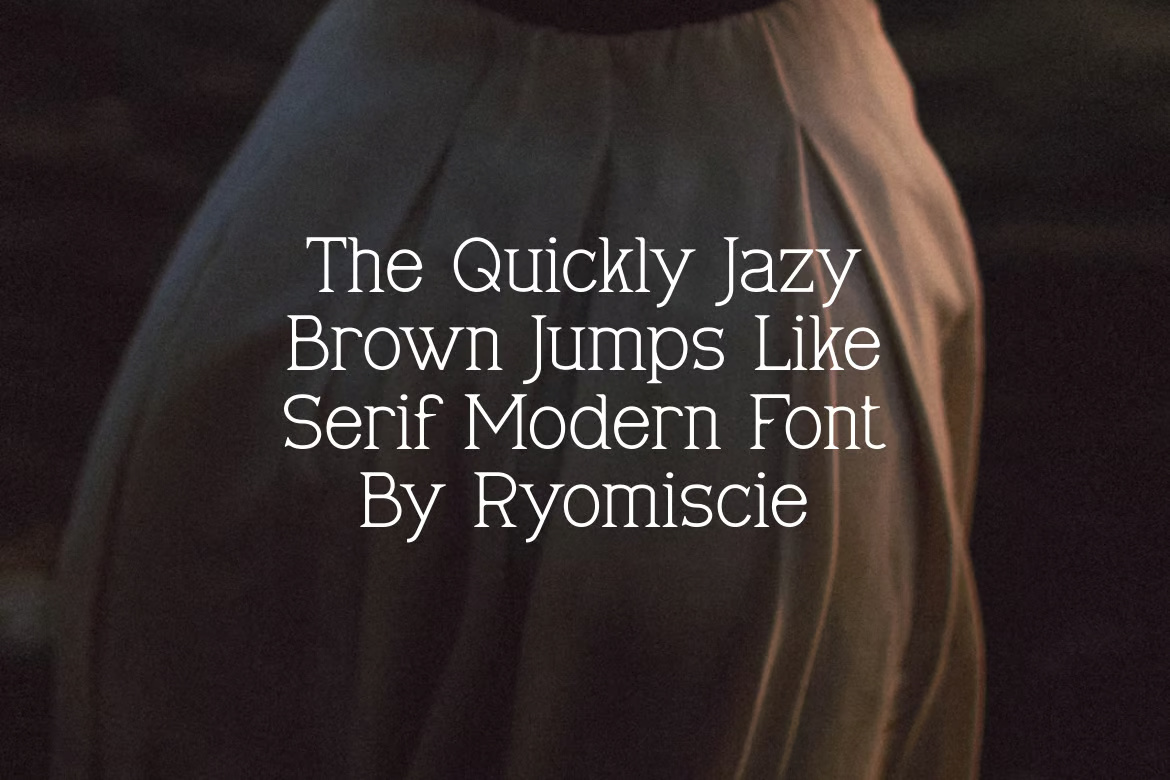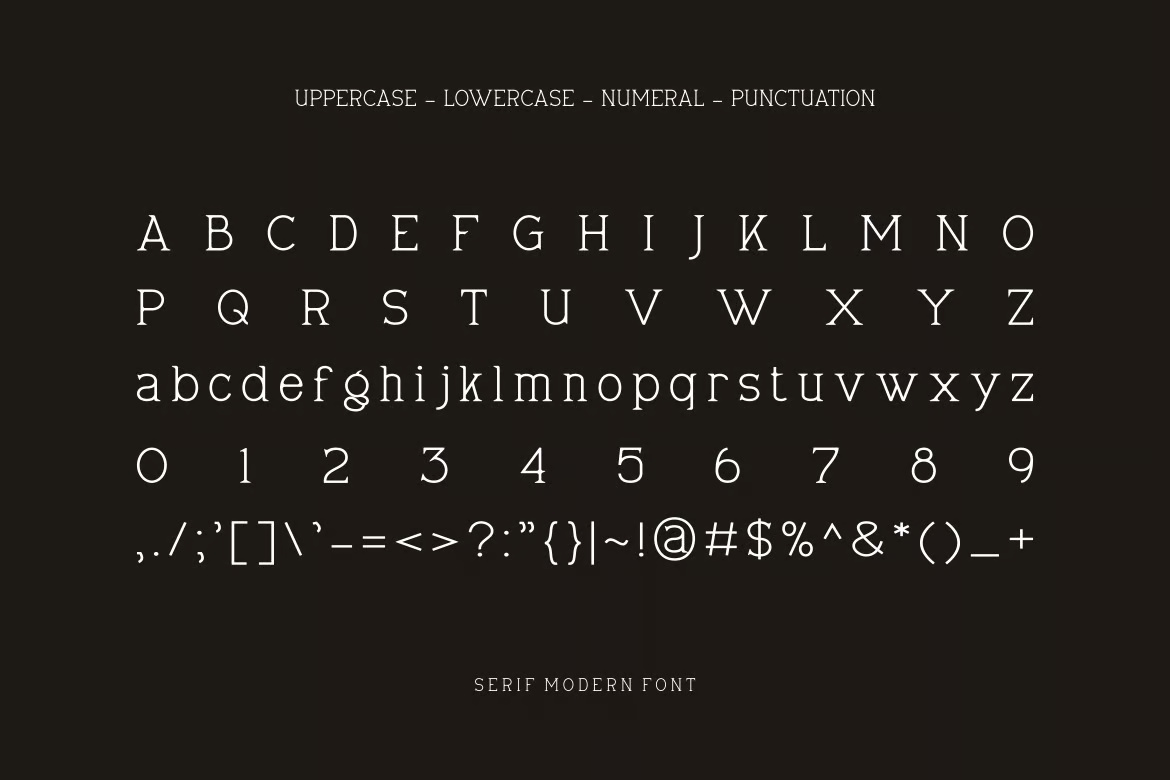
Janggo – Serif Modern Font
LJanggo Font – Modern Font is a bold and authentic display typeface that exudes confidence and versatility. With its strong, eye-catching letterforms, this font is perfect for a variety of branding projects, including logos, t-shirt designs, esports graphics, posters, and more. Whether used for digital or print applications, LJanggo Font stands out in any creative context, making your designs truly memorable.
Janggo – Serif Modern Bold Font